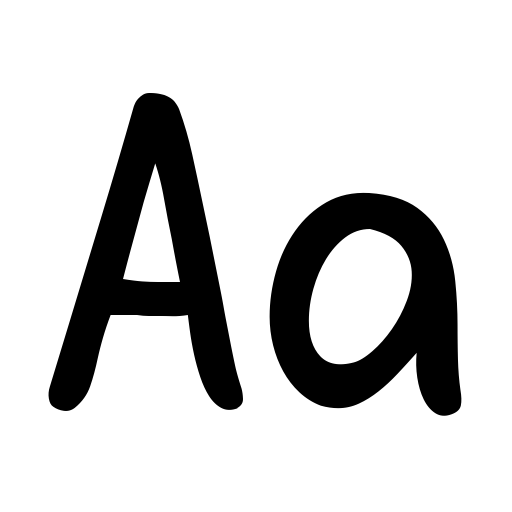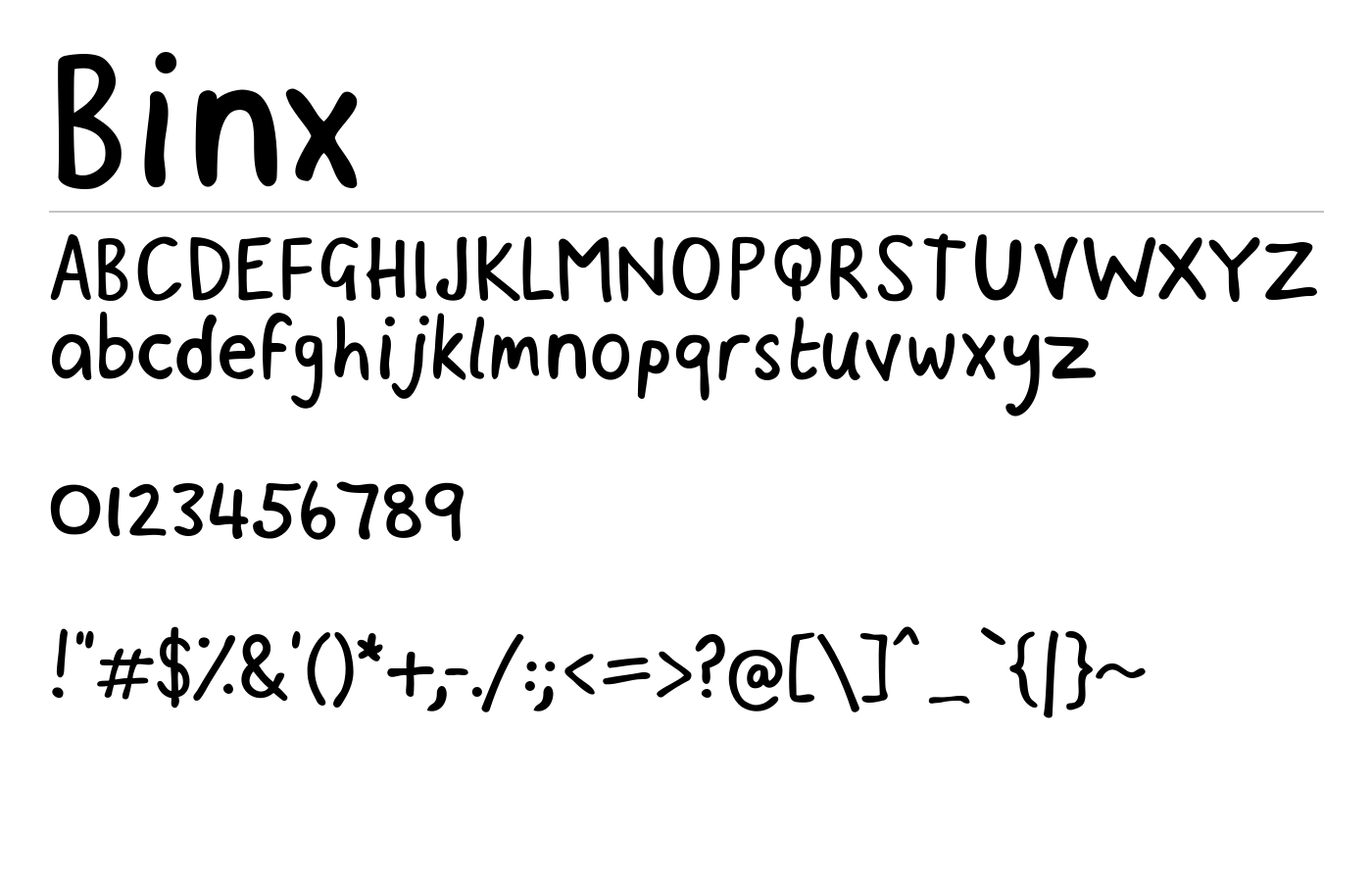
Binx is a playful and casual sans serif font with a hand-drawn, friendly feel. Its rounded, irregular letterforms and moderate x-height give it an approachable and informal look, making it ideal for children’s books, creative projects, or branding that wants to evoke warmth and personality. Binx works well in headlines, packaging, and web design where a lively, human touch is desired.
Binx Font
About Binx Font
| Font family | Binx Font |
| Designer | Luke Ferrand |